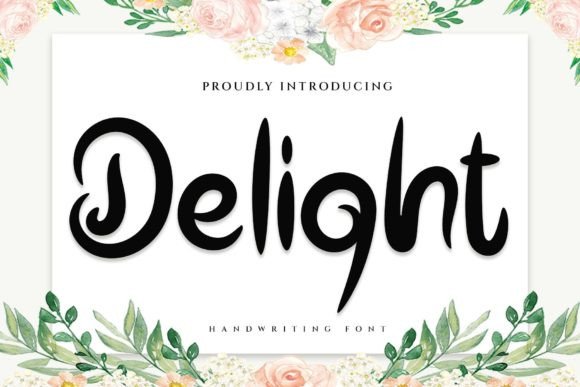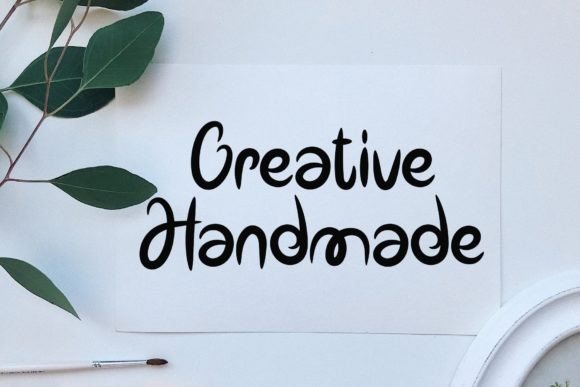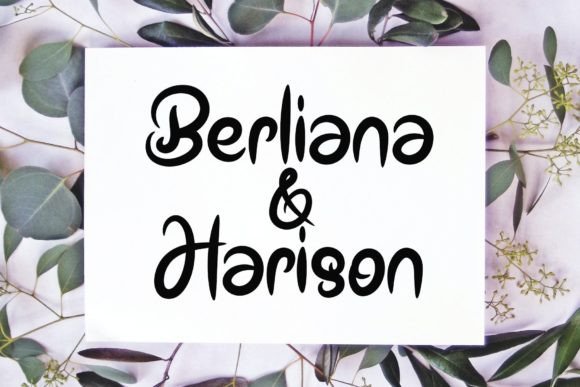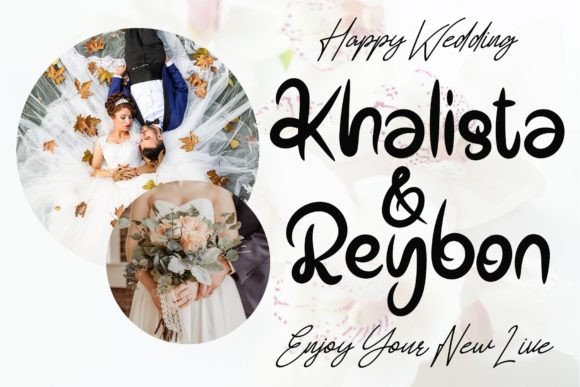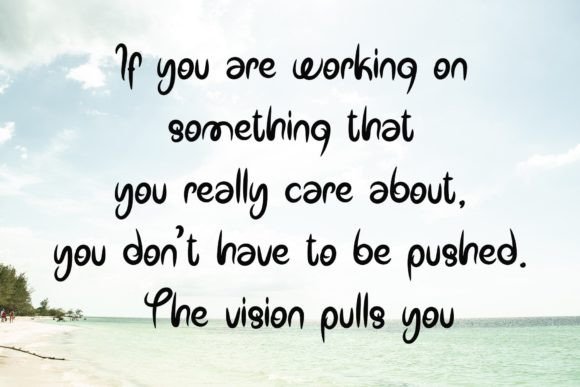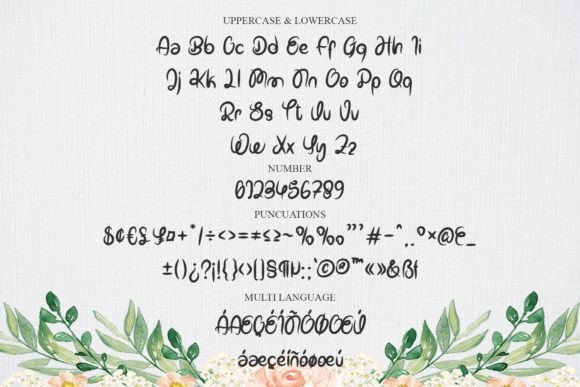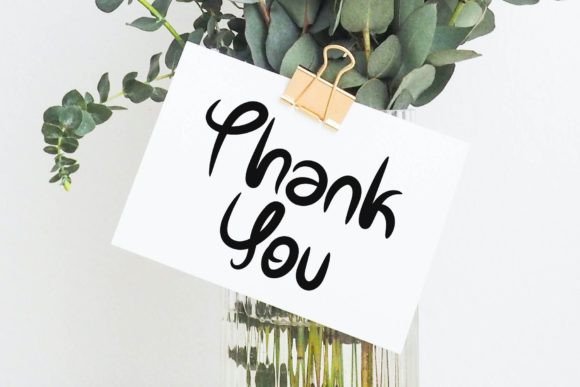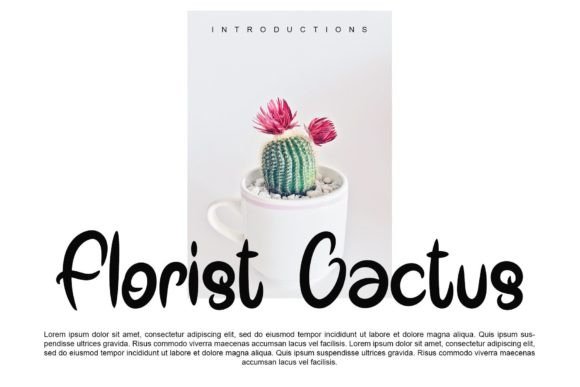
Delight Font
About Delight Font
Delight is a delicate, elegant, and flowing handwritten font. Its beautiful and well-balanced characters make it a versatile choice, seamlessly matching a wide range of designs. PUA encoding ensures easy access to all the unique glyphs and swashes, providing you with the flexibility to enhance and customize your projects effortlessly.
Each font, whether Delight or Rustic Pantry, brings its own distinctive qualities to the table. Delight with its elegance and flow, and Rustic Pantry with its rustic charm, ensuring that you have a versatile set of tools to elevate your creative projects.